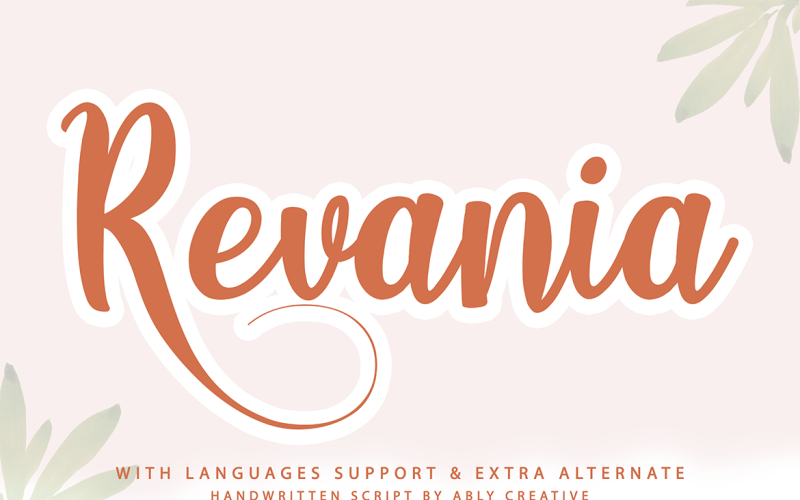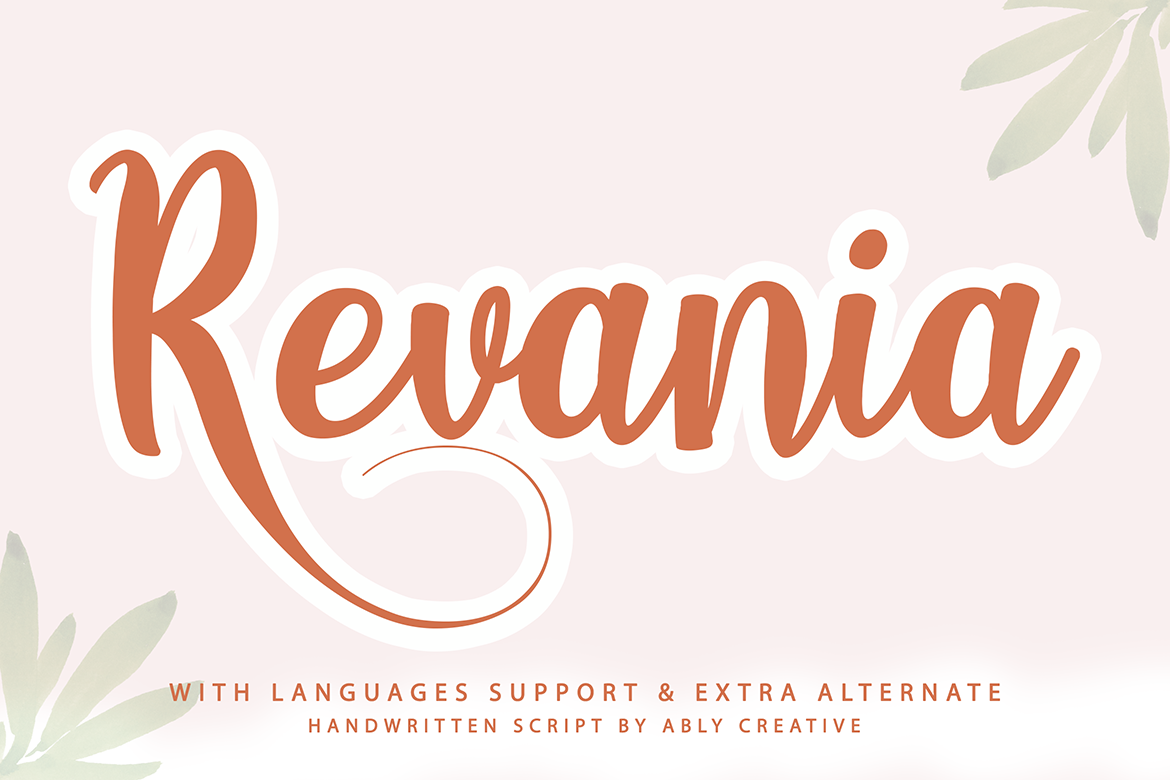
Revania Font Calligraphy And Font Script Modern
Revania is a modern calligraphy script font, created with both brushpen. dancing baseline with separate swashes that can be applied to the ends of all lowercase. Were painted on paper. scanned, vectorized and carefully made into a font. Revania includes ligatures, alternates and international support for most western languages, For the separate swashes font, type lowercase a-z for the end swashes or add swashes manually, Ideal for logo, wedding invitations, businness card, poster, merchandise, greeting cards, prints, blog banners, apparel, quotes and so much more!